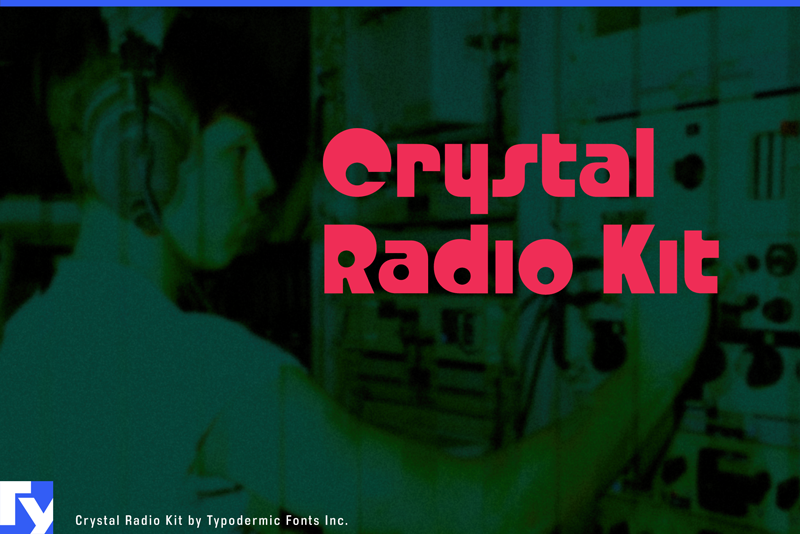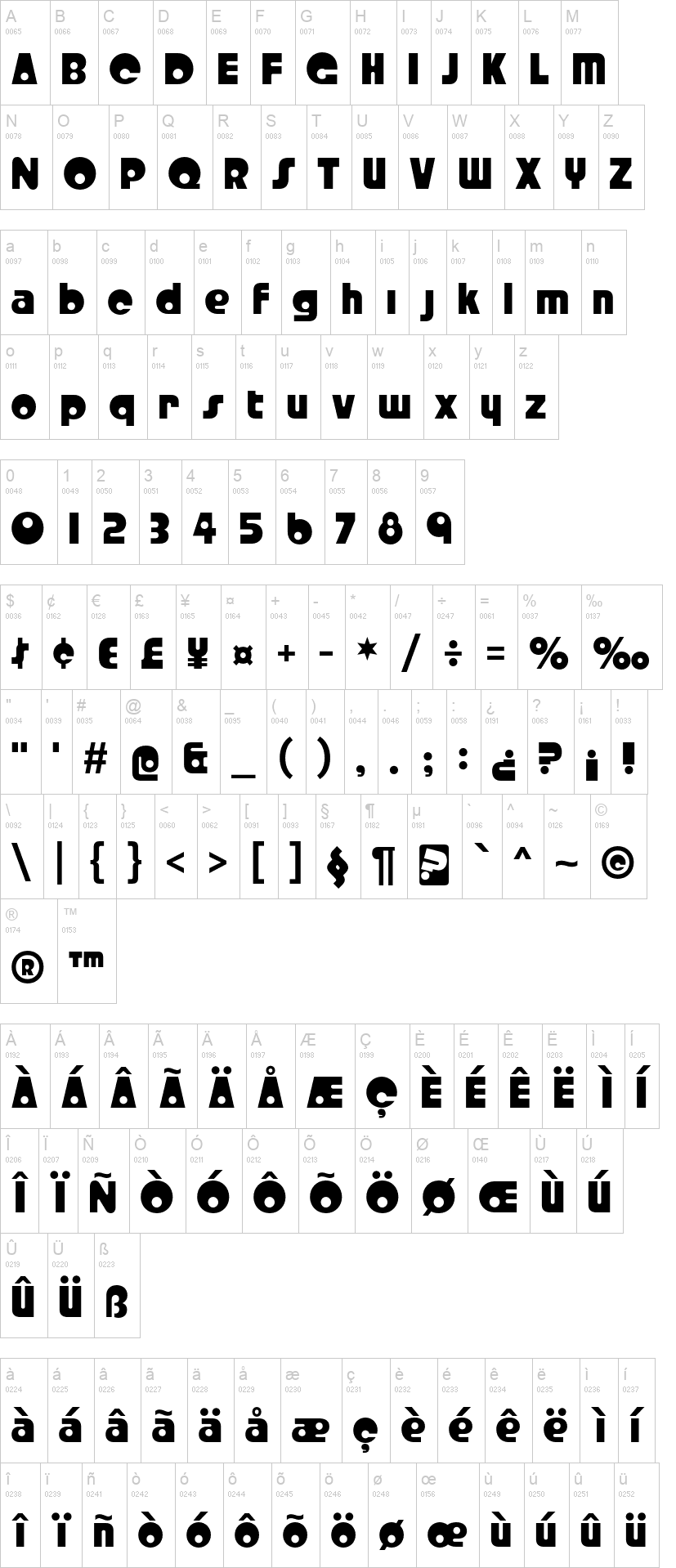
Note of the authorCrystal Radio Kit is a retro techno font reminiscent of the classic Radio Shack logo. That strange logotype was so unusual that it had to inspire a typeface design. Its distinct, intriguing letterforms are undeniably cool. The original logo only had a few letters, but it was enough to inspire a whole alphabet and more. Most Latin-based European writing systems are supported, including the following languages. Afaan Oromo, Afar, Afrikaans, Albanian, Alsatian, Aromanian, Aymara, Bashkir (Latin), Basque, Belarusian (Latin), Bemba, Bikol, Bosnian, Breton, Cape Verdean, Creole, Catalan, Cebuano, Chamorro, Chavacano, Chichewa, Crimean Tatar (Latin), Croatian, Czech, Danish, Dawan, Dholuo, Dutch, English, Estonian, Faroese, Fijian, Filipino, Finnish, French, Frisian, Friulian, Gagauz (Latin), Galician, Ganda, Genoese, German, Greenlandic, Guadeloupean Creole, Haitian Creole, Hawaiian, Hiligaynon, Hungarian, Icelandic, Ilocano, Indonesian, Irish, Italian, Jamaican, Kaqchikel, Karakalpak (Latin), Kashubian, Kikongo, Kinyarwanda, Kirundi, Kurdish (Latin), Latvian, Lithuanian, Lombard, Low Saxon, Luxembourgish, Maasai, Makhuwa, Malay, Maltese, Māori, Moldovan, Montenegrin, Ndebele, Neapolitan, Norwegian, Novial, Occitan, Ossetian (Latin), Papiamento, Piedmontese, Polish, Portuguese, Quechua, Rarotongan, Romanian, Romansh, Sami, Sango, Saramaccan, Sardinian, Scottish Gaelic, Serbian (Latin), Shona, Sicilian, Silesian, Slovak, Slovenian, Somali, Sorbian, Sotho, Spanish, Swahili, Swazi, Swedish, Tagalog, Tahitian, Tetum, Tongan, Tshiluba, Tsonga, Tswana, Tumbuka, Turkish, Turkmen (Latin), Tuvaluan, Uzbek (Latin), Venetian, Vepsian, Võro, Walloon, Waray-Waray, Wayuu, Welsh, Wolof, Xhosa, Yapese, Zapotec Zulu and Zuni.